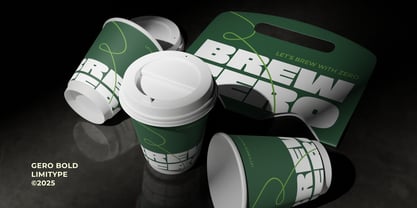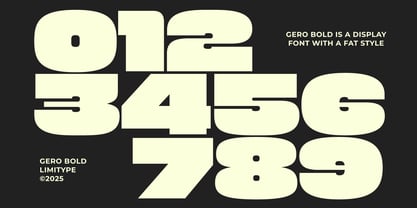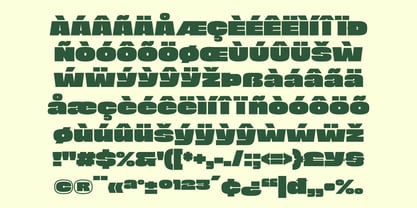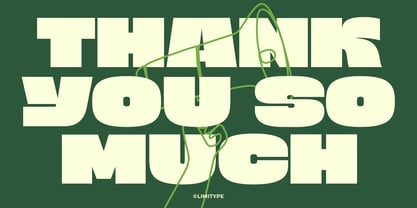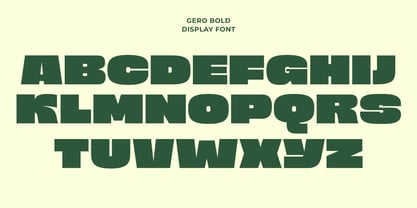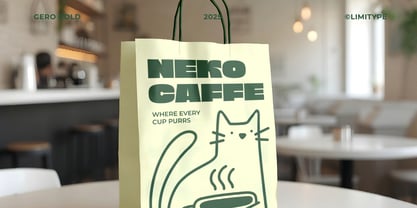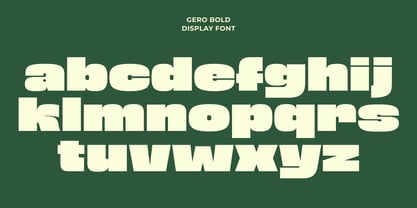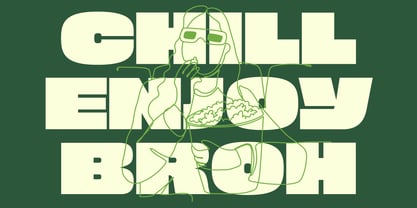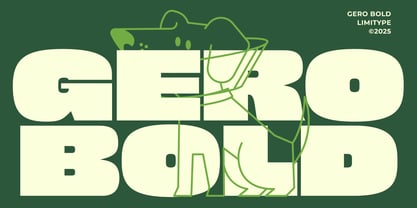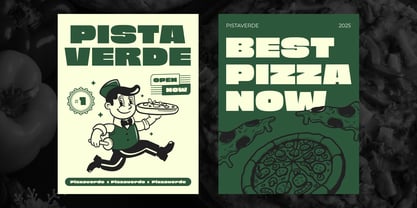
Gero
by limitype
The Gero Font Family was designed by Muhammad Muammar, Furqan Sudirman and published by limitype. Gero contains 1 styles.
Gero is display typeface with a bold and chunky font with a strong and striking display style. Its dense, Solid letterforms give a modern and confident impression. Perfect for posters, logos, branding, magazine, titles, food designs, or any creative project that wants to look bold, powerful, and memorable. Gero available with: Uppercase Lowercase Number Symbol Multilingual
Designers: Muhammad Muammar, Furqan Sudirman
Publisher: limitype
Foundry: limitype
Design Owner: limitype